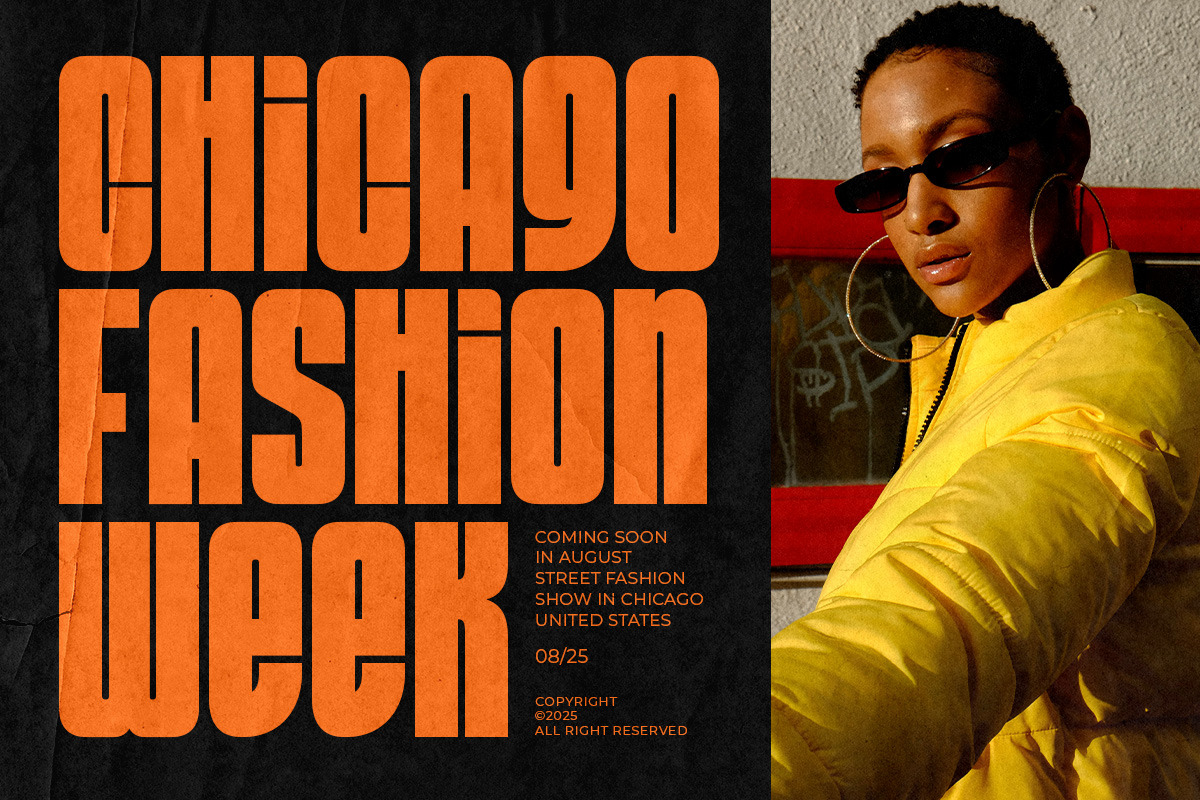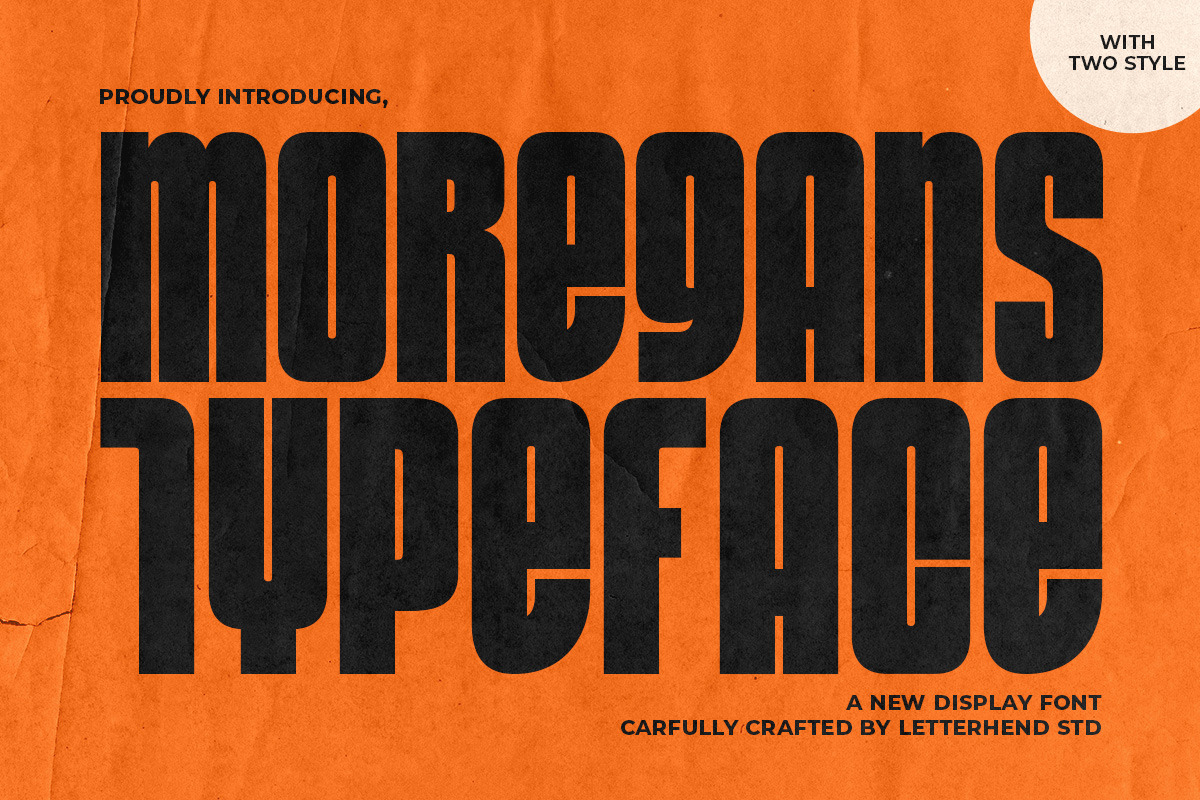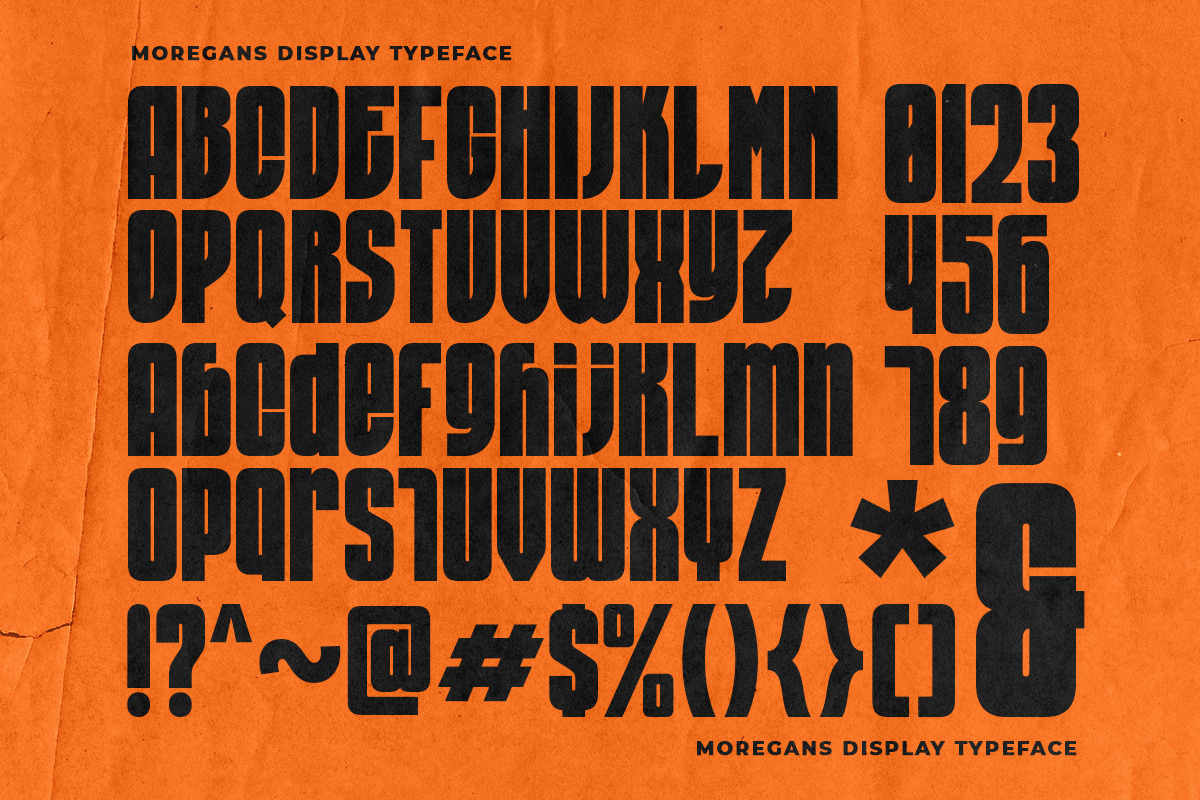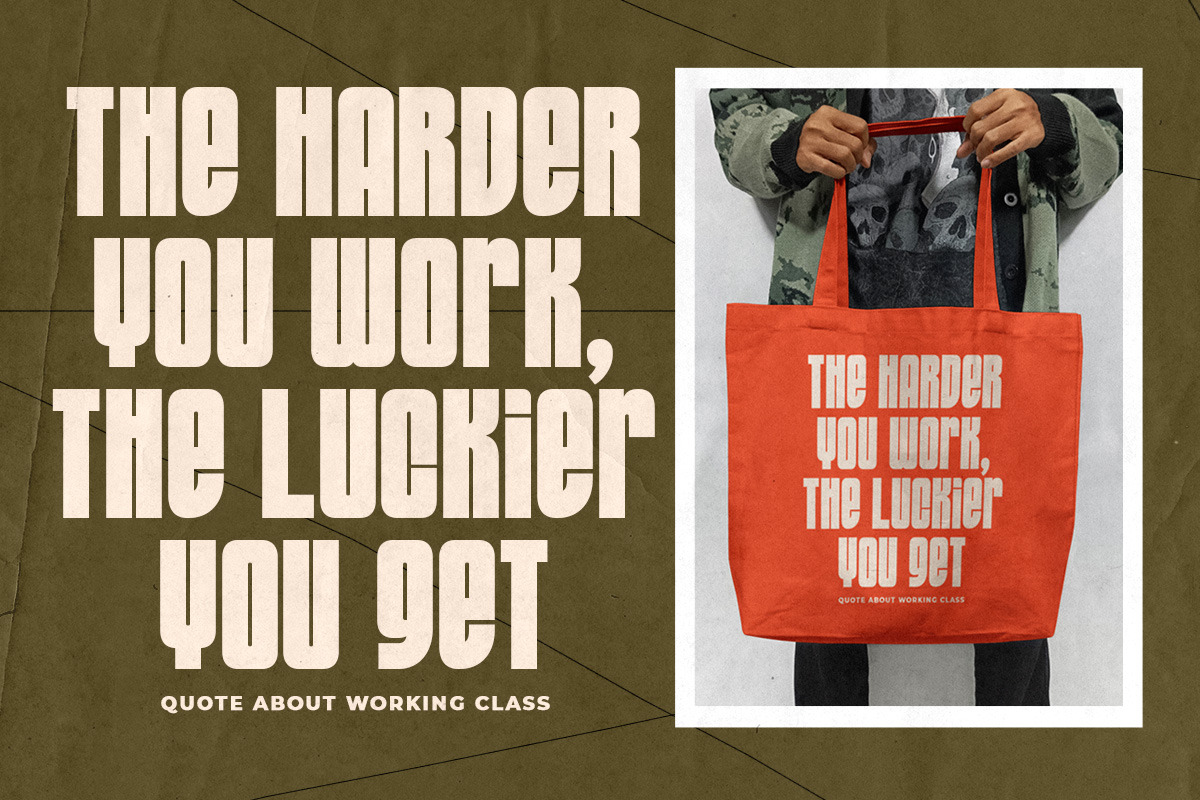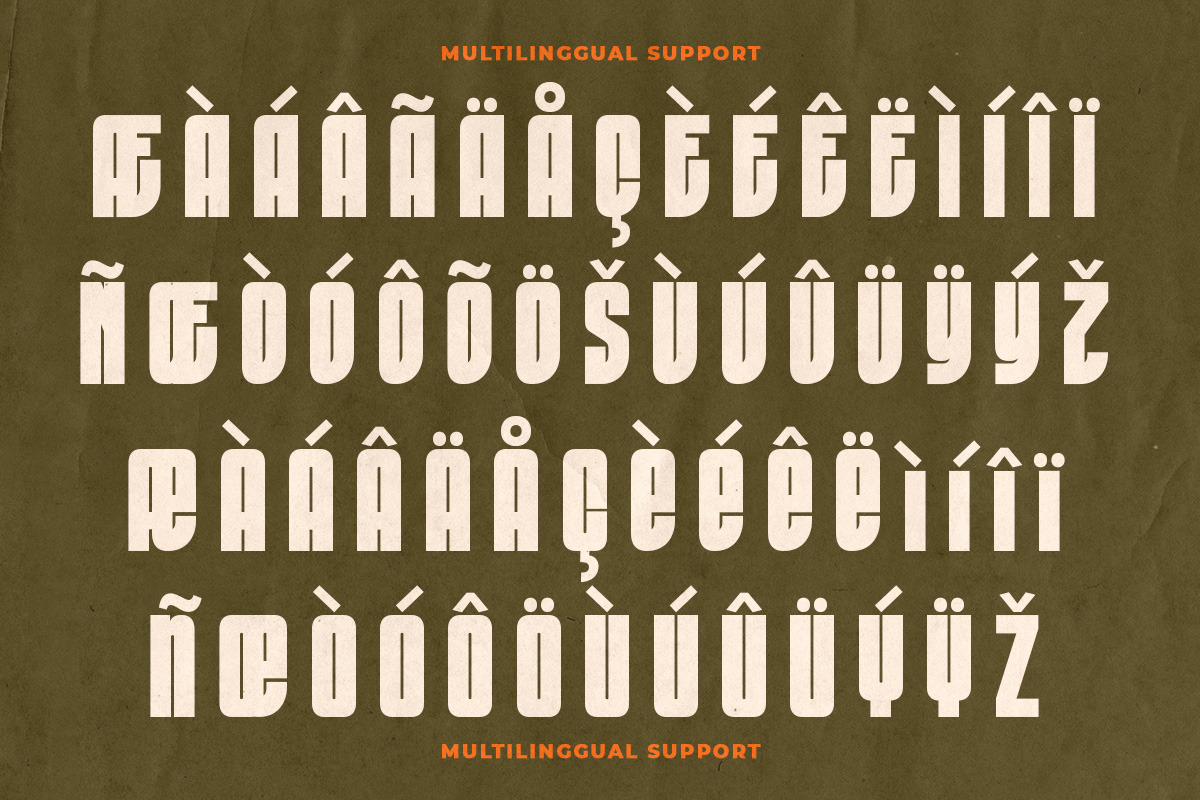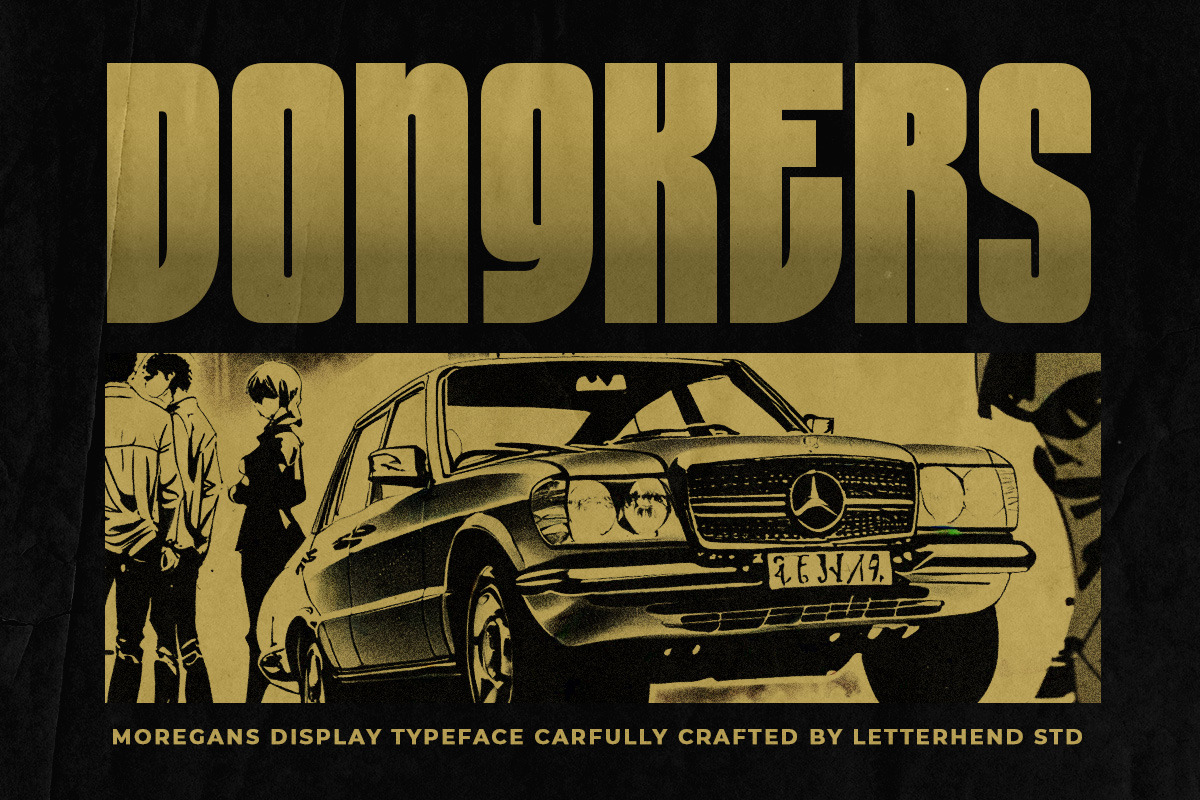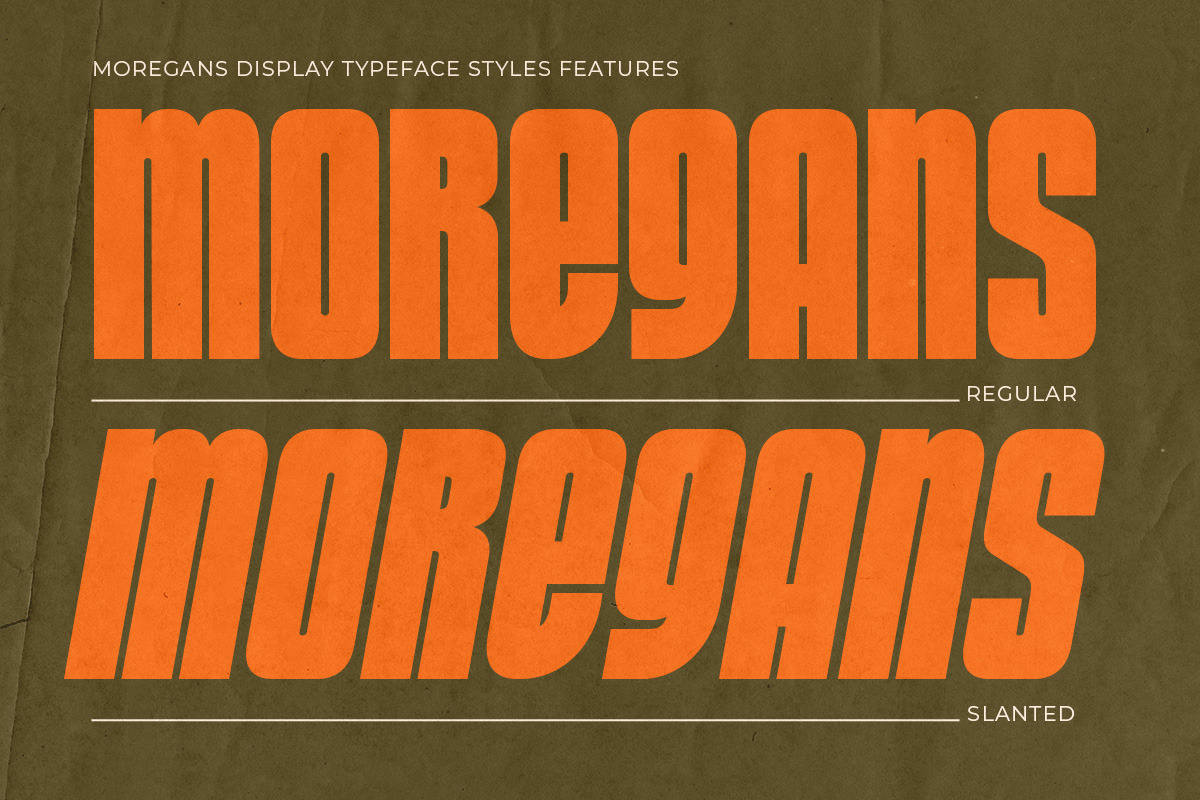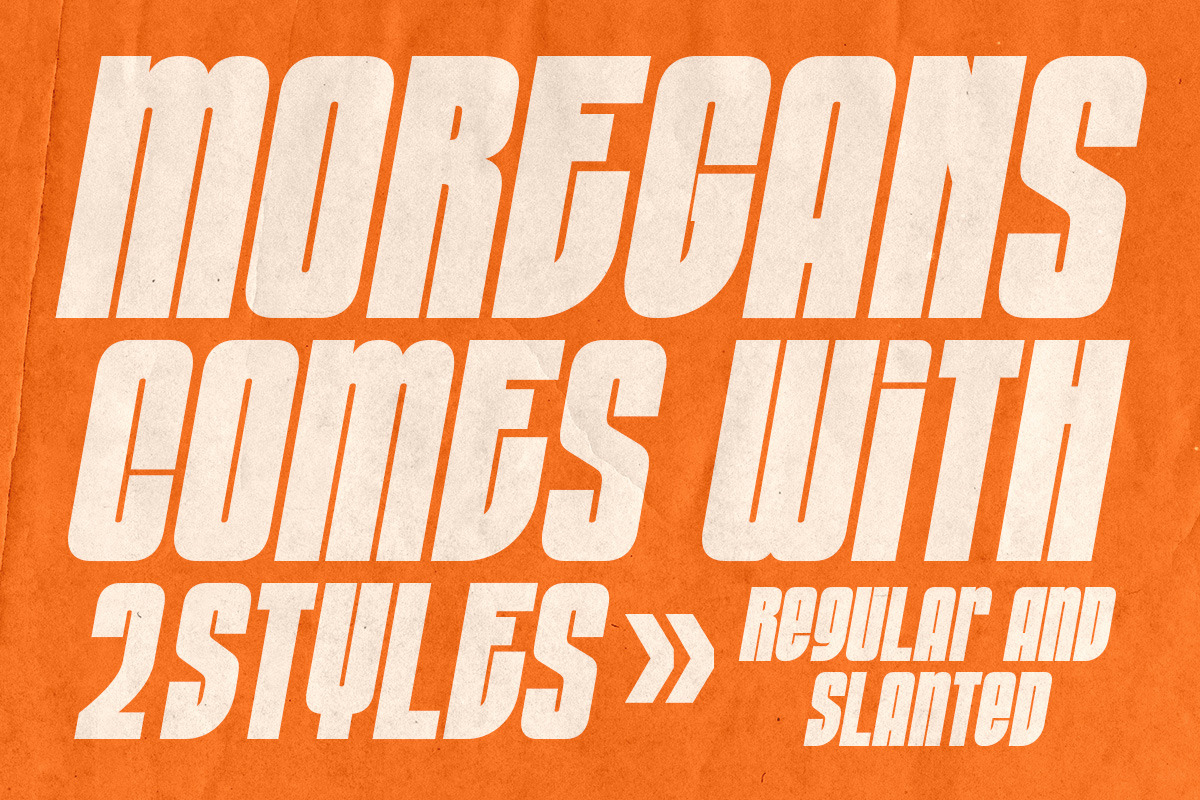
Moregans Typeface
Moregans is a bold and powerful display typeface featuring two distinctive styles. Carefully crafted for maximum visual impact, this font boasts a tall, compressed structure with strong geometric shapes and vintage undertones. Its commanding presence makes it perfect for posters, branding, editorial titles, and retro-inspired designs, bringing a confident and edgy vibe to any project.